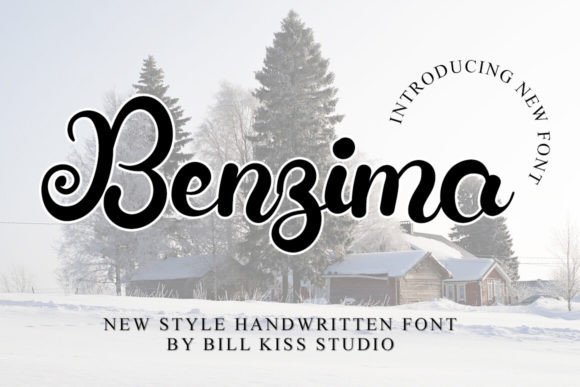
Introducing Benzima: The Elegant Script Font for Sophisticated Designs
Are you looking for a font that can add a touch of elegance and sophistication to your designs? Look no further than Benzima, a stunning script font that is sure to capture the attention of your audience. With its intricate, flowing lines that emulate the natural movement of handwriting, Benzima is the perfect choice for creating unique and personalized designs that leave a lasting impression.
The Beauty of Benzima
Benzima’s beauty lies in its intricate details and graceful curves. This beautiful typeface features a unique blend of classic and modern elements, making it an ideal choice for designs that require a touch of luxury and refinement. Whether you’re working on a wedding invitation, a branding project, or a social media post, Benzima’s elegant script will help you create a sophisticated and eye-catching design that stands out from the crowd.
Benzima is a versatile font that can be used for a wide range of creative projects. Its flowing lines and intricate details make it perfect for designs that require a personal touch, such as:
- Branding projects and logos
Why Choose Benzima?
So why choose Benzima over other script fonts? Here are just a few reasons why Benzima stands out:
- Unique and elegant design: Benzima’s intricate lines and flowing curves make it a one-of-a-kind font that will add a touch of sophistication to your designs.
- Highly versatile: Benzima can be used for a wide range of creative projects, from wedding invitations to branding projects and social media posts.
- Easy to read: Despite its intricate details, Benzima is easy to read and understand, making it perfect for designs that require a clear and concise message.
- Customizable: Benzima can be customized to fit your design needs, allowing you to create a unique and personalized design that reflects your brand or style.
Tips for Using Benzima
Here are a few tips for using Benzima in your designs:
- Use it sparingly: Benzima’s intricate details can be overwhelming if used too much. Use it sparingly to create a focal point in your design.
- Pair it with a simple font: Pair Benzima with a simple font to create a striking contrast and make your design stand out.
- Experiment with colors: Benzima looks great in a variety of colors, so don’t be afraid to experiment and find the perfect color scheme for your design.
In conclusion, Benzima is a stunning script font that is sure to add elegance and sophistication to your designs. Its intricate lines, flowing curves, and unique blend of classic and modern elements make it the perfect choice for creating unique and personalized designs that capture the attention of your audience. Whether you’re a designer, crafters, or DIY enthusiast, Benzima is a must-have font that will take your designs to the next level.